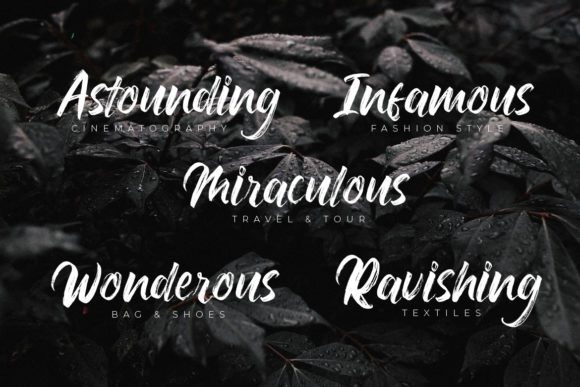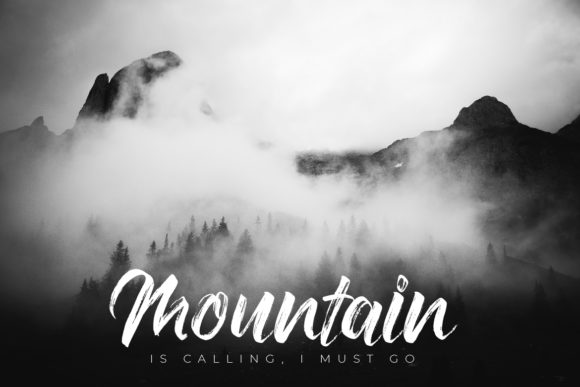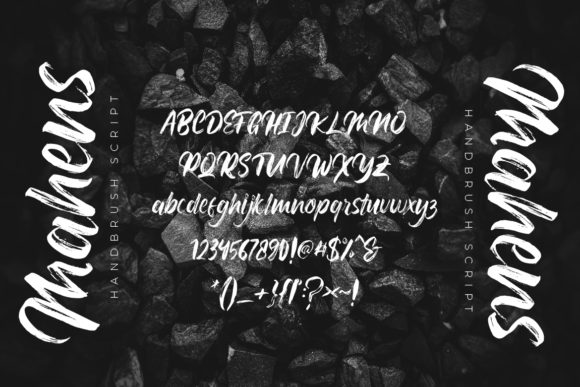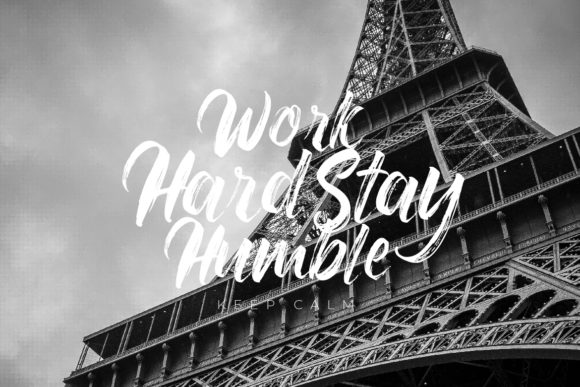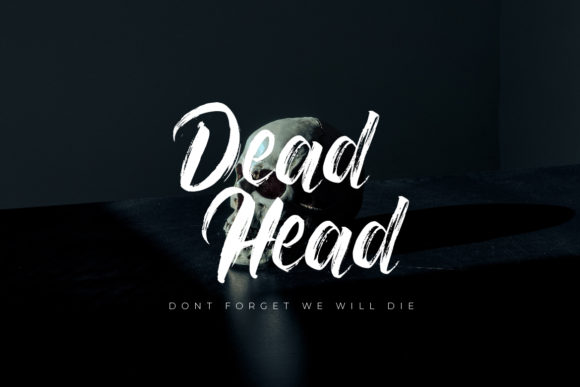
Introduction to Mahens Font
Have you ever stared at a blank canvas, trying to find the perfect words to bring your creative vision to life? The blank page can be intimidating, but the right design resource can be the key to unlocking your imagination. For designers, finding the perfect font can make all the difference in a project.
Enter the Mahens Font, a stunning brush-style script font that exudes modernity and sophistication. Its authentic look and feel make it a valuable addition to any designer’s toolkit, whether you’re working on a high-end creative project or a simple design concept. With its high-quality design and transparent background, the Mahens Font is the perfect choice for designers who demand the best.
Key Features of Mahens Font
- Unique, hand-drawn design with a modern twist, ideal for creative projects and design resources.
- Includes a range of characters, including uppercase and lowercase letters, numbers, and special characters.
- Perfect for use in graphic design, digital art, and typography projects, adding a touch of elegance and sophistication.
- Supports multiple languages, making it a versatile design resource for global creative projects.
Honest Review: Mahens Font
As a designer, I’m always on the lookout for high-quality fonts that can elevate my creative projects. Recently, I stumbled upon the Mahens Font, and I’m excited to share my honest review.
However, I did encounter a few limitations: ⚠️ The font only comes in a limited number of styles, which may not be ideal for designers who need a wide range of options. Additionally, the font may not be suitable for very large-scale projects, as it may lose its quality when scaled up.
Overall, I’m impressed with the Mahens Font. It’s a great design resource that can add a touch of sophistication to any creative project. While it may have a few limitations, I would definitely recommend it to designers who are looking for a high-quality, free font.
Mahens Font is ideal for creating eye-catching titles, headings, and captions for your design project. Its high-quality design and transparent background make it perfect for use in presentations, social media graphics, and other visual content.
Alternatives to Mahens Font
The Great Vibes Font is a high-quality, cursive font that is perfect for creative projects requiring a touch of elegance. It can be used for headings or titles in a design and can also be downloaded for free. When to use: For a romantic or vintage-themed design project.
Comparison to Mahens Font: Great Vibes Font has a more fluid and dynamic feel compared to Mahens Font, making it suitable for projects requiring a more emotional and personal touch.
The Alex Brush Font is a beautiful, handwritten font that works well for titles, headings, or body text in a design. It has a transparent background, making it easy to place over any image or background. When to use: For a creative or artistic project requiring a personal touch.
Comparison to Mahens Font: Alex Brush Font has a more elegant and refined feel compared to Mahens Font, making it suitable for projects requiring a more sophisticated and high-end look.
The Dancing Script Font is a fun and playful font that is perfect for creative projects requiring a lively and energetic feel. It can be used for headings, titles, or body text in a design and can also be downloaded for free. When to use: For a fun or playful-themed design project.